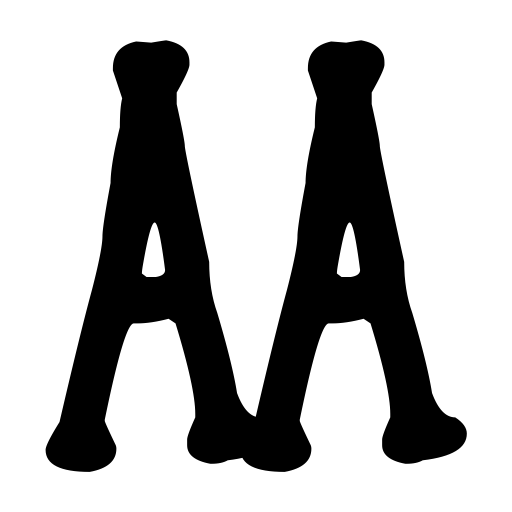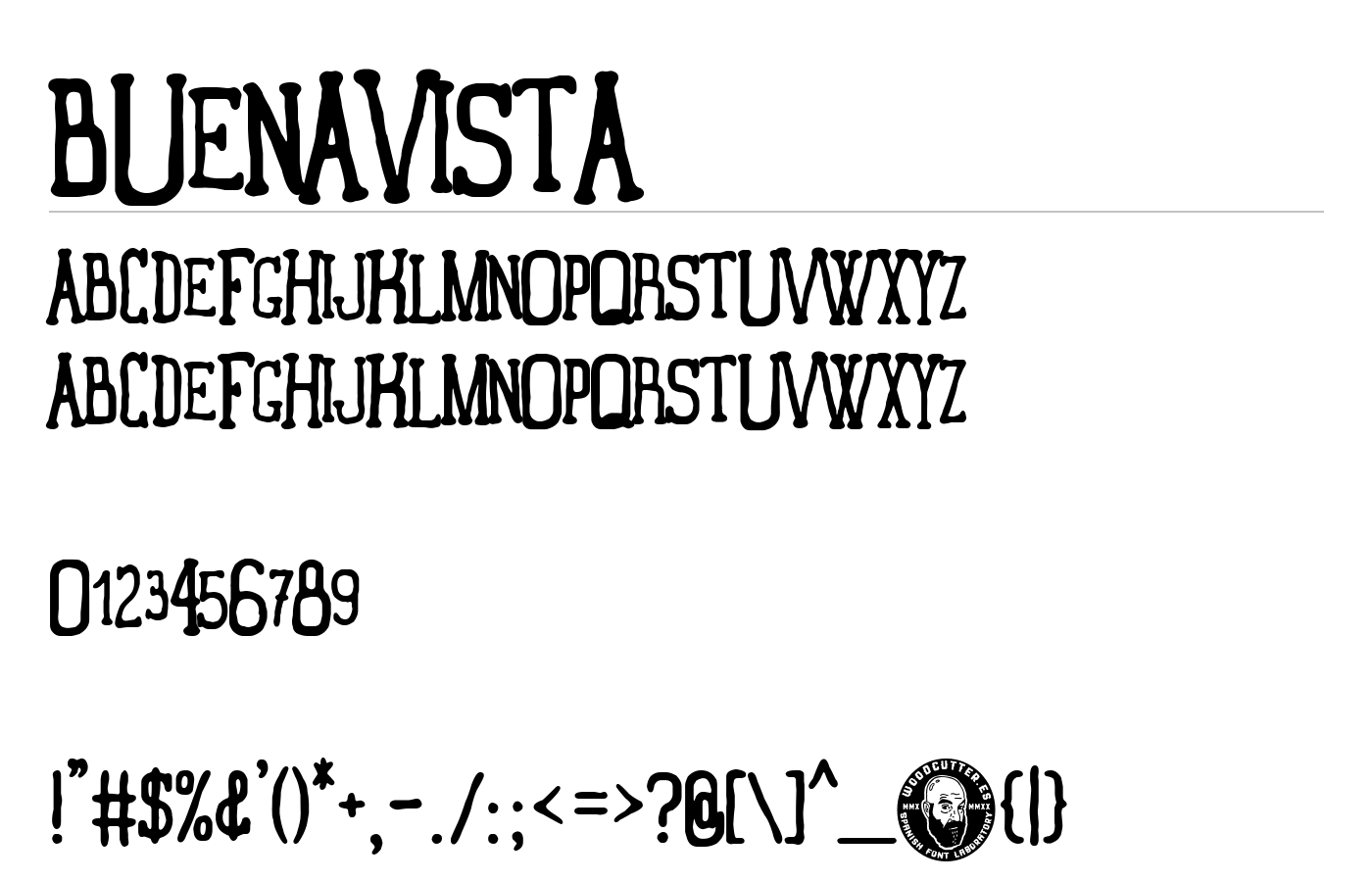
Buenavista is a quirky and bold slab serif font with a handcrafted, vintage feel. Its irregular stroke widths and playful shapes give it a unique personality, making it perfect for brands or designs seeking character and charm with a touch of rustic authenticity. This font works especially well in eye-catching headlines, posters, and packaging where a distinctive, expressive style is desired.
Buenavista Font
About Buenavista Font